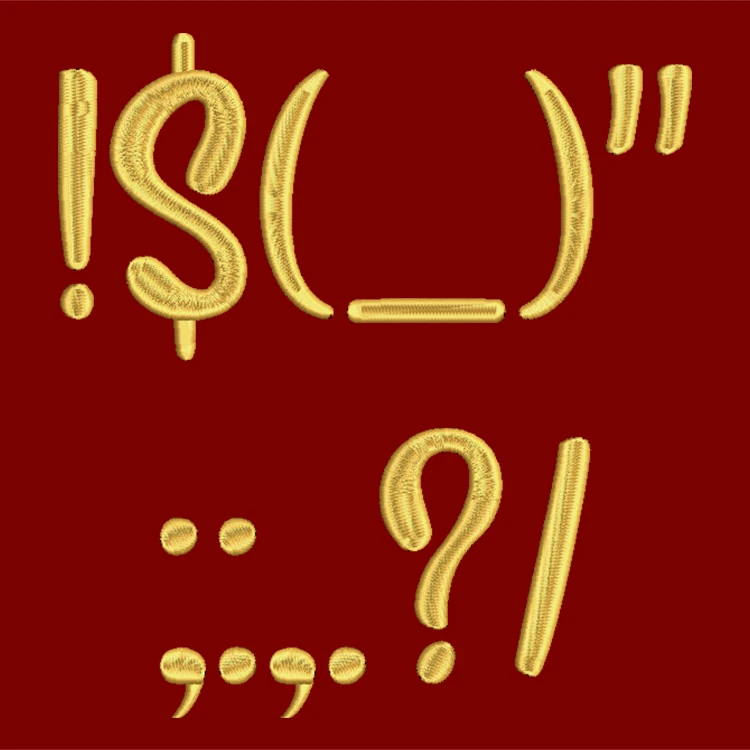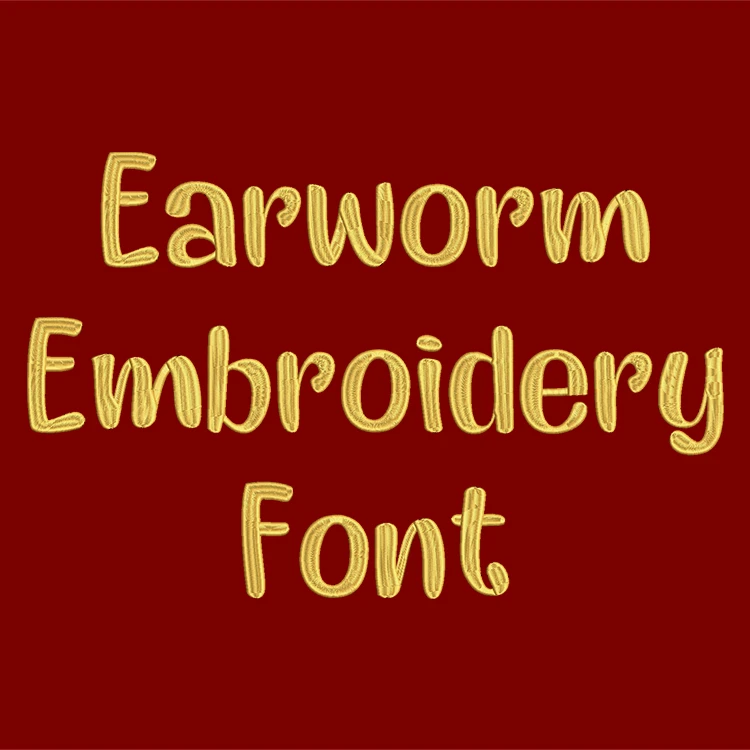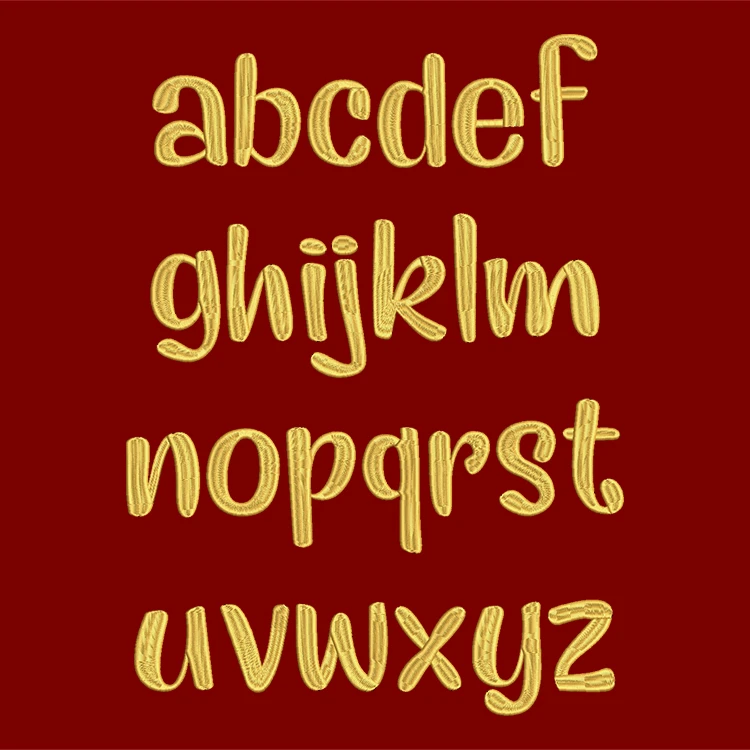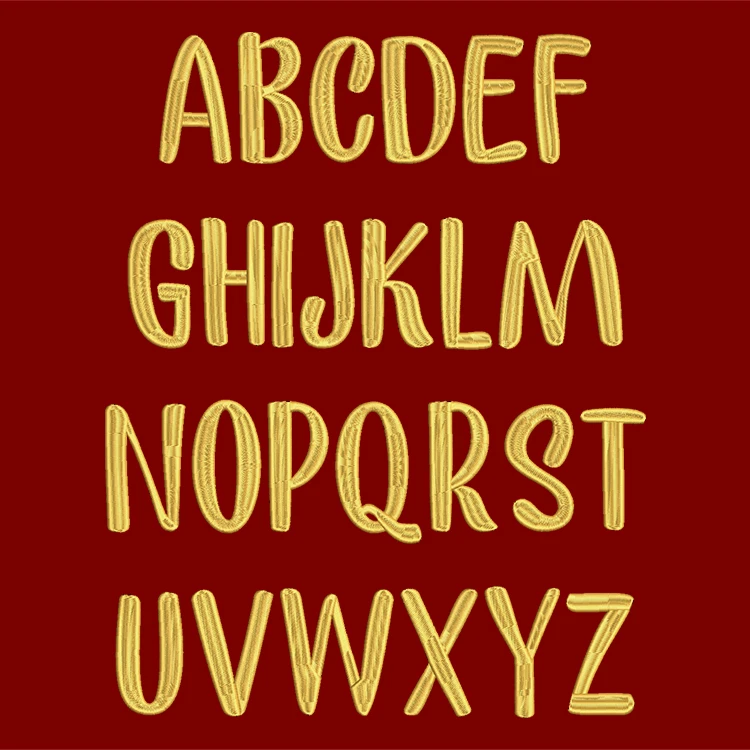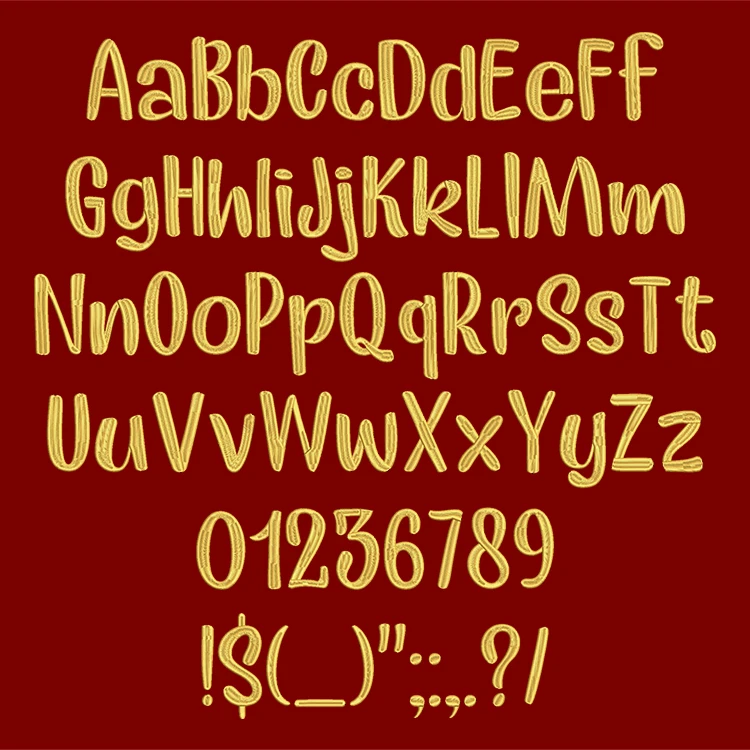
Title: Earworm Machine Embroidery Font
This beautiful font would look amazing as a Monogram on Totes, School bags and purses!
Carefully digitized to ensure a high quality finish, this font set comes in four sizes*